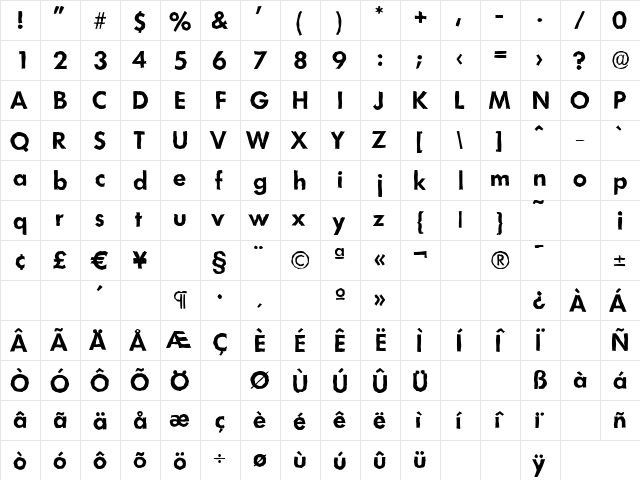
LimerickAntique Bold
Design Context for LimerickAntique Typeface
LimerickAntique wears its vintage influences proudly, with letterforms that recall mid-century signage, classic packaging, and nostalgia-driven design. The heavy weight commands attention and anchors typographic hierarchies.
Ideal for diner signage, record shop branding, 70s/80s-themed projects, and heritage product labels.
Font Pairing: Combine LimerickAntique with a simple slab or neutral sans — period-accurate companions reinforce the vintage feel without competing for attention.
Pro Tip: Lean into LimerickAntique's period character by pairing it with aged paper textures, muted colour palettes, and vintage illustration styles.